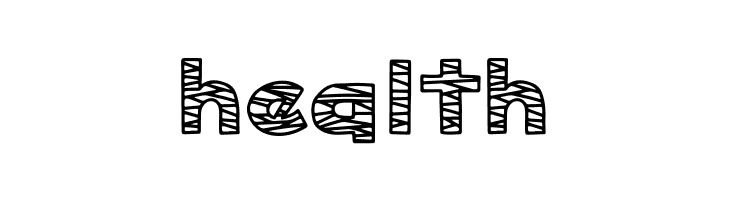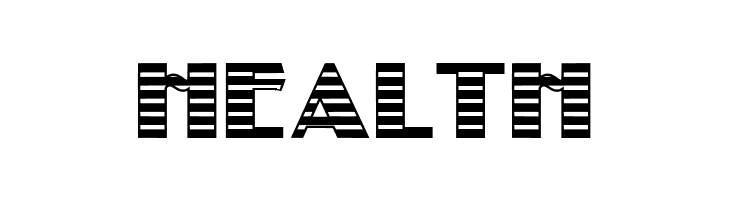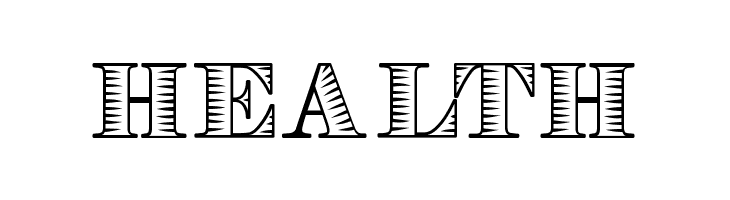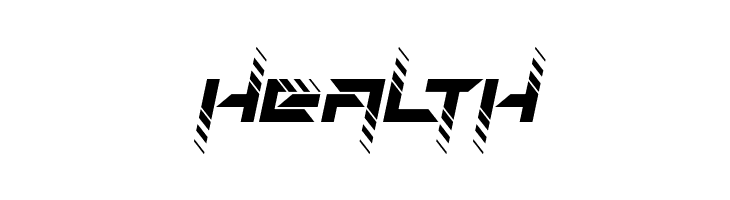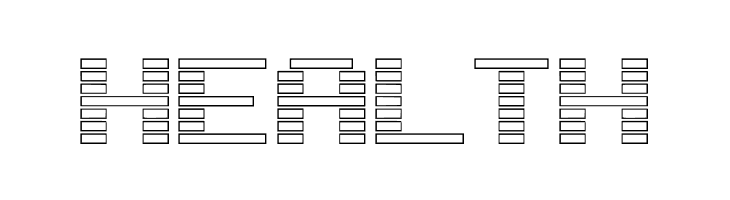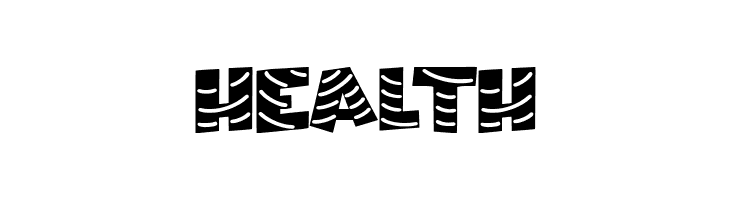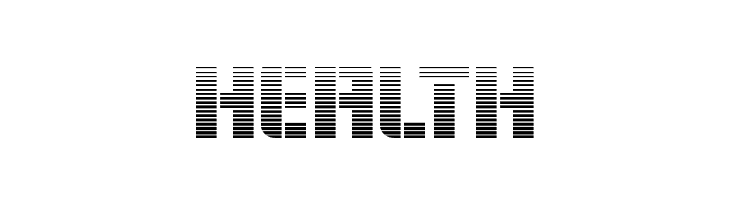
A bold, striped font with a modern, geometric style.
A bold, striped sans-serif font with a modern and dynamic appearance.
A decorative font with bold outlines and hollow, striped interiors.
A bold, striped decorative font with geometric shapes.
A bold, decorative font with a unique striped pattern, ideal for headlines and creative projects.
A bold, italic font with angular lines and diagonal stripes, exuding a futuristic and dynamic style.
A bold, geometric font with a modern, striped design.
A bold, striped block font with a modern, industrial feel.
A bold, candy-striped decorative font perfect for festive designs.
A bold, modern font with a distinctive gradient stripe effect.